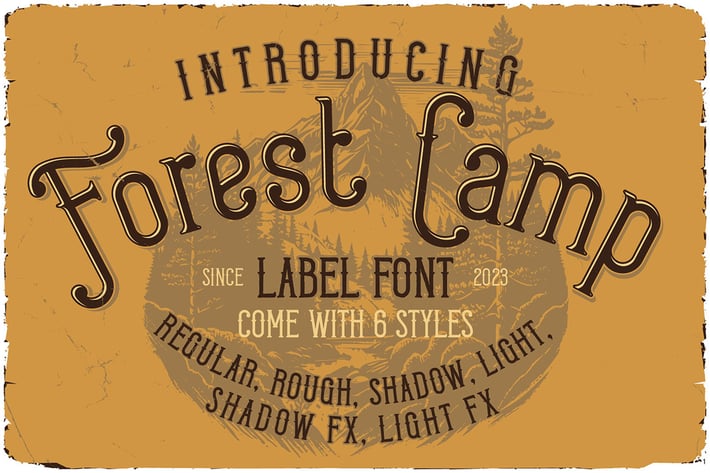
Forest Camp Display Font
Unique retro, vintage & decorative serif font. Comes with multilingual support & alternates - great for your new logo or branding project.
- 6 font versions
- Multilingual support
- Great for retro or vintage style branding projects